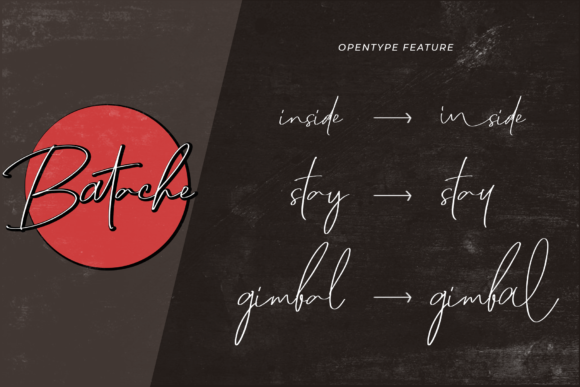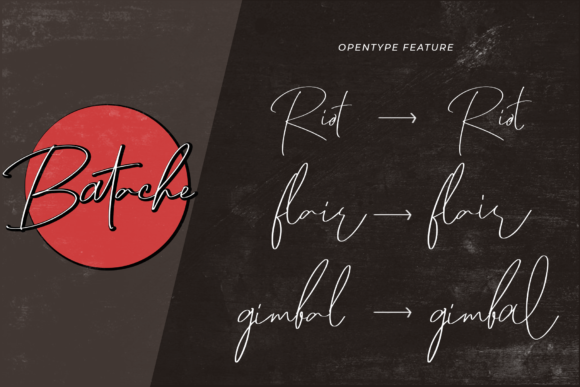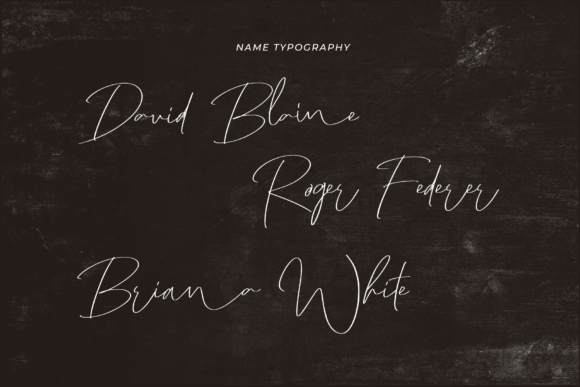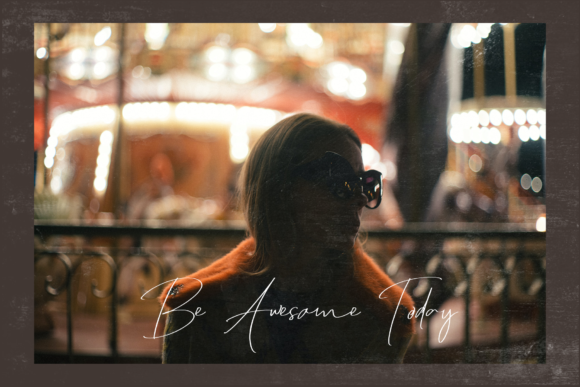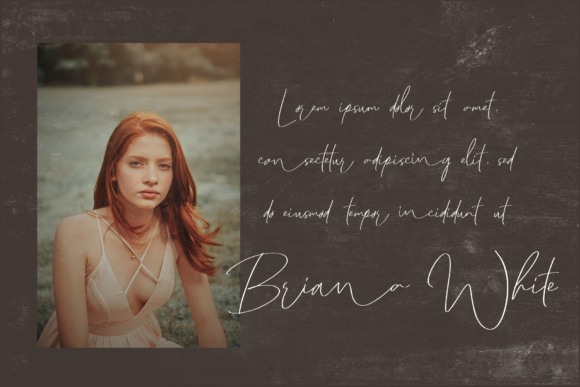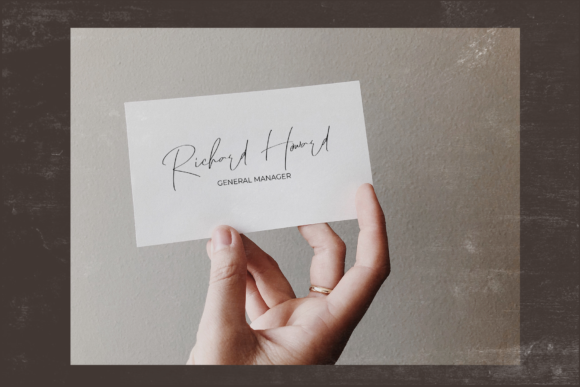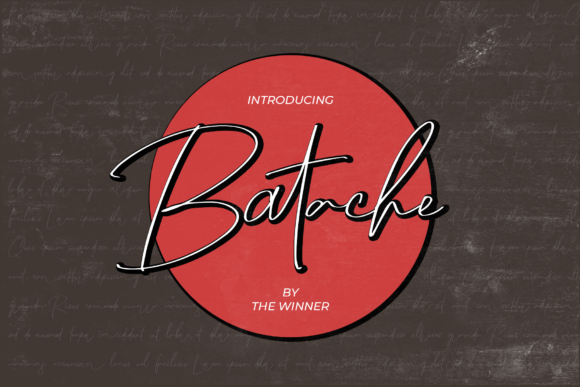
Batache Font: The Ultimate Choice for Modern and Relaxed Designs
In the world of typography, fonts play a crucial role in conveying the tone and personality of a design. For designers and crafters looking for a modern and relaxed touch, Batache Font is an excellent choice. This authentic, thin lettered script font has gained popularity for its informal style and casual vibe, making it a go-to choice for various creative projects.
What is Batache Font?
Batache Font is a modern script font characterized by its thin and elegant lettering. Its unique design offers a fresh and relaxed feel, perfect for designs that require a personal touch. The font’s informal style makes it suitable for a wide range of applications, from digital media to print materials.
Key Features of Batache Font
- Authentic and Modern Design: Batache Font boasts an authentic and modern design that sets it apart from traditional script fonts.
- Thin Lettered: The font’s thin lettering gives it a sleek and elegant appearance, perfect for designs that require a touch of sophistication.
- Informal Style: Batache Font’s informal style makes it ideal for designs that need a relaxed and casual touch.
- Casual Vibe: The font’s casual vibe is perfect for creative projects that require a friendly and approachable tone.
Use Cases for Batache Font
Batache Font is versatile and can be used in various design projects, including:
- Branding and Logo Design: The font’s unique design makes it perfect for creating memorable logos and brand identities.
- Digital Media: Batache Font is suitable for digital media, including social media graphics, blog posts, and website headers.
- Print Materials: The font can be used in print materials, such as brochures, flyers, and business cards.
- Crafting and DIY Projects: Batache Font is a great choice for crafters and DIY enthusiasts who want to add a personal touch to their projects.
Benefits of Using Batache Font
Using Batache Font in your design projects offers several benefits, including:
- Unique and Memorable Designs: The font’s unique design helps create memorable and eye-catching designs.
- Flexibility: Batache Font is versatile and can be used in various design projects.
- Easy to Read: The font’s thin lettering and clear design make it easy to read, even at small sizes.
- Time-Saving: With Batache Font, designers can save time and effort in creating custom lettering or typography.
Tips for Using Batache Font Effectively
To get the most out of Batache Font, follow these tips:
- Pair with Bold Fonts: Pair Batache Font with bold fonts to create a striking contrast and add visual interest to your designs.
- Use in Headings and Titles: Use Batache Font in headings and titles to add a touch of elegance and sophistication.
- Experiment with Colors: Experiment with different colors to find the perfect match for your design and brand identity.
- Keep it Simple: Keep your design simple and clean to let Batache Font shine.
Batache Font is an excellent choice for designers and crafters looking for a modern and relaxed touch in their designs. Its unique and authentic design, thin lettering, and casual vibe make it perfect for a wide range of applications. By following the tips outlined above, you can effectively use Batache Font to create memorable and eye-catching designs that leave a lasting impression.